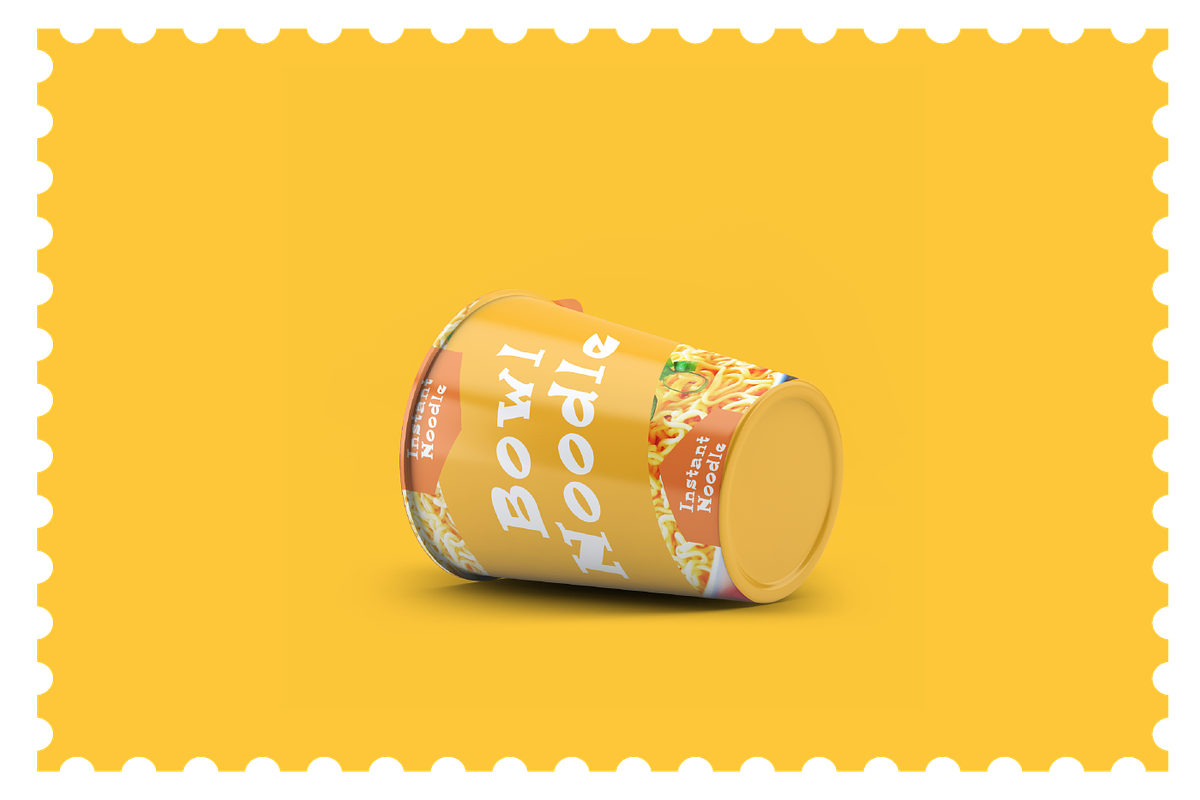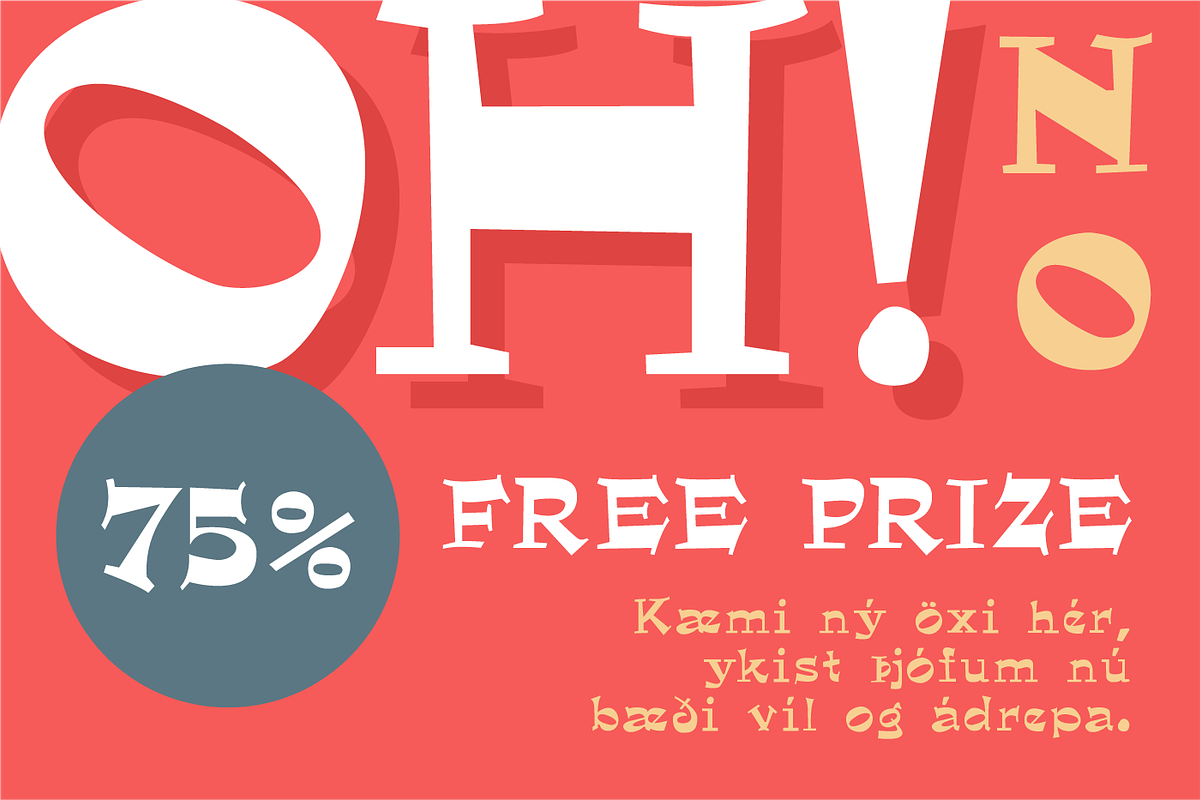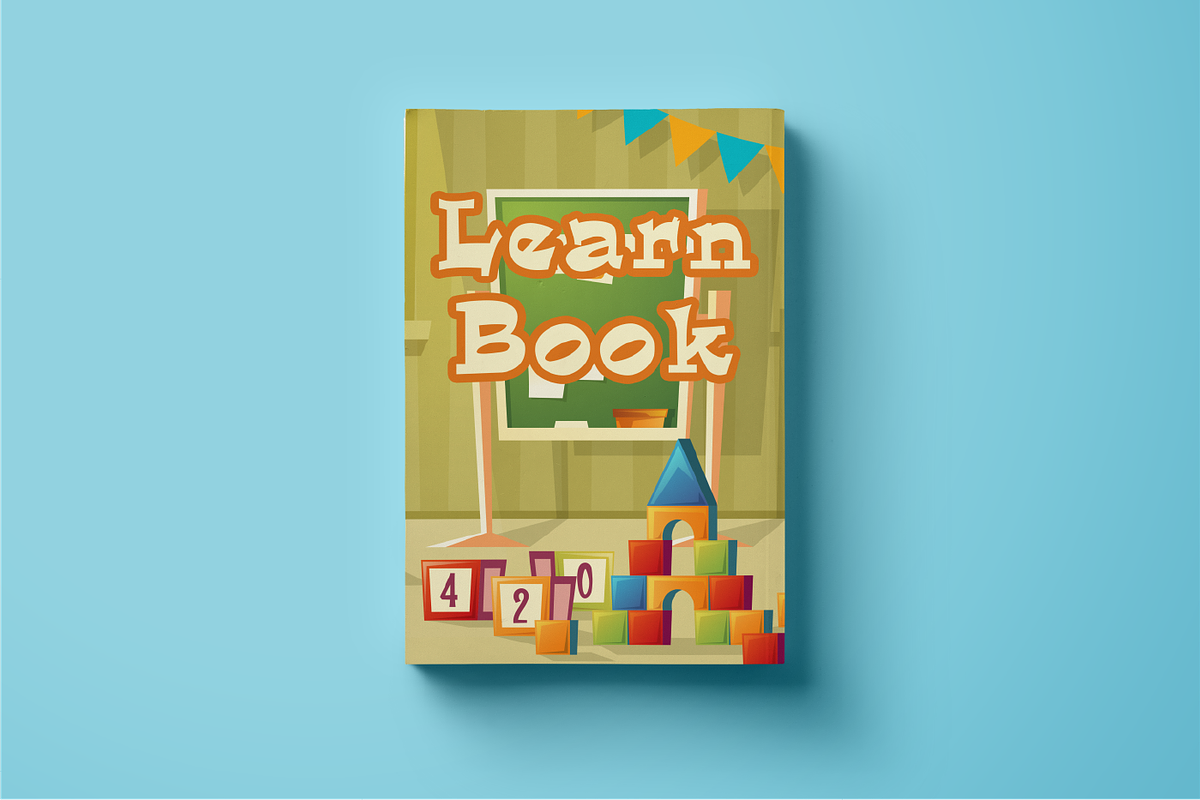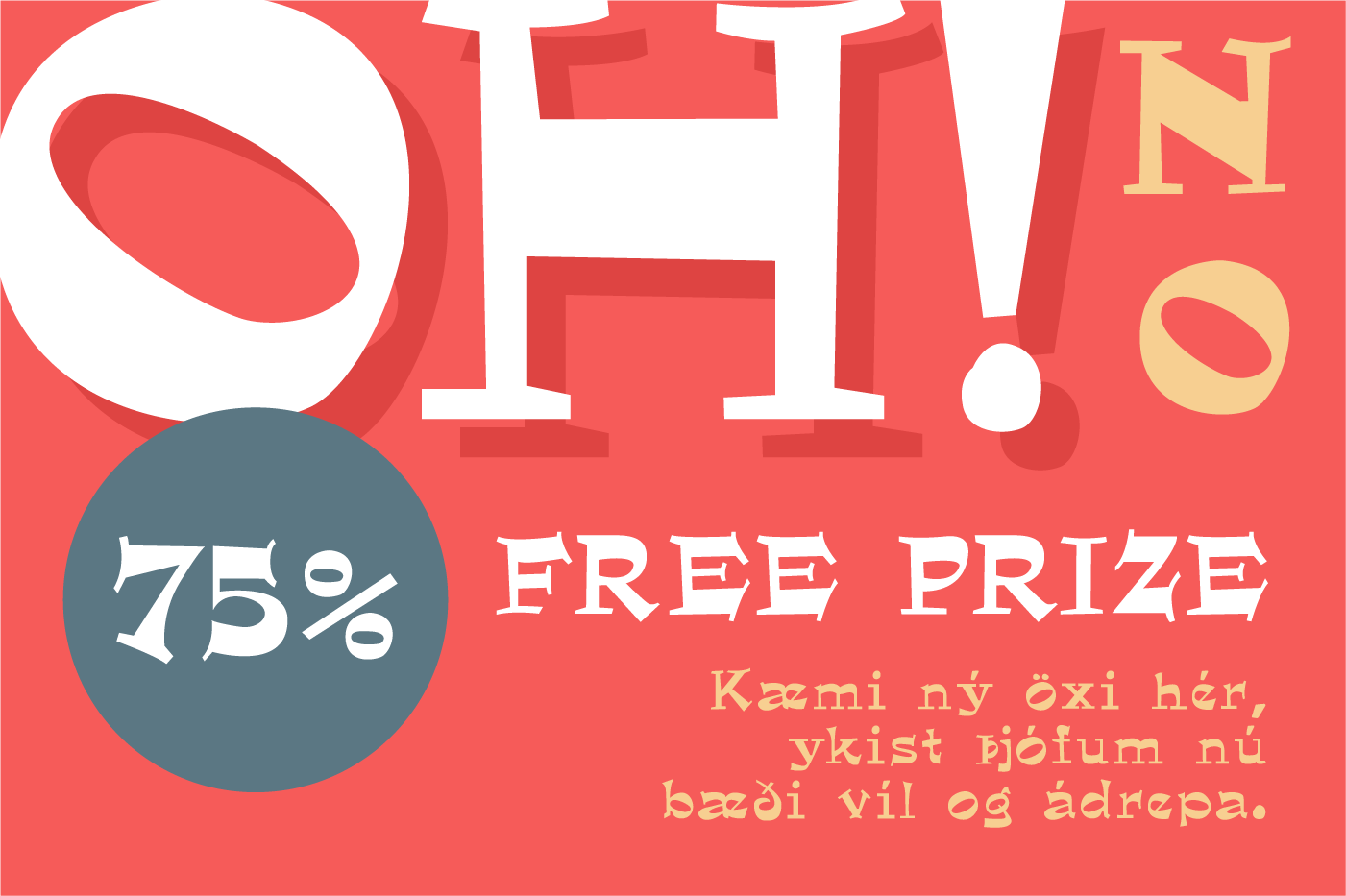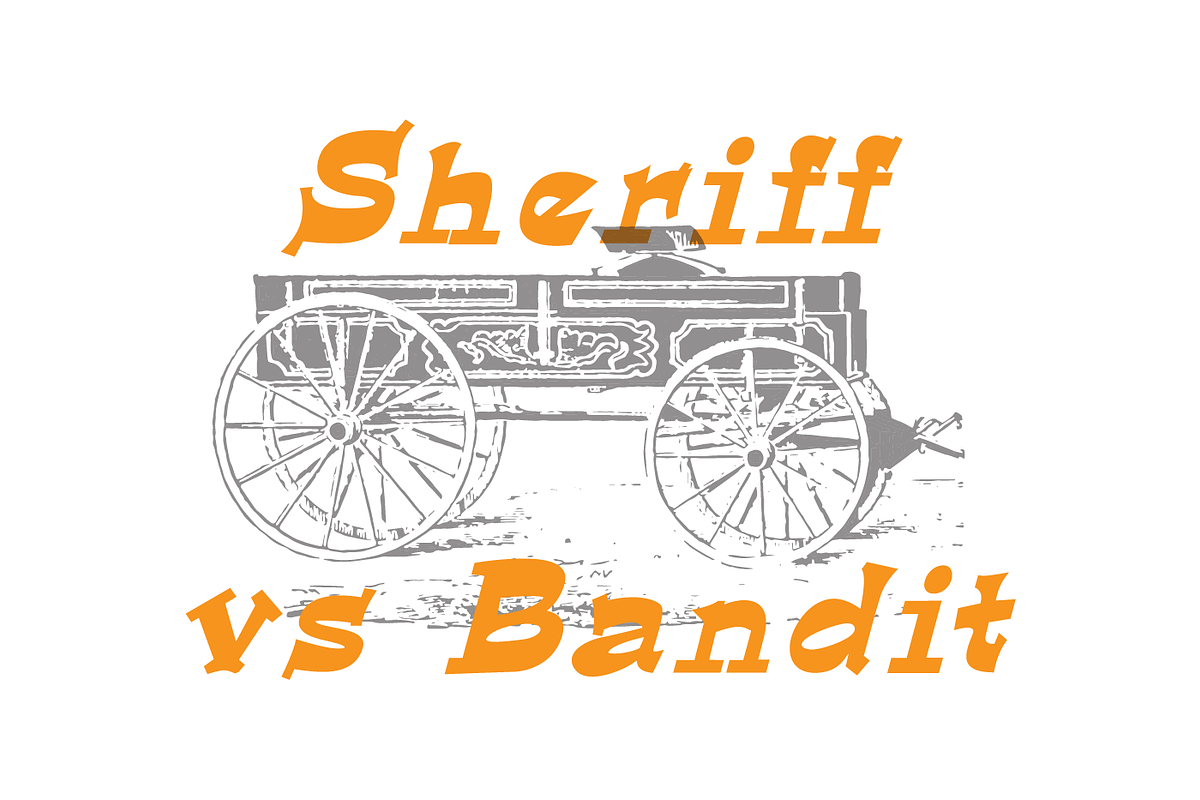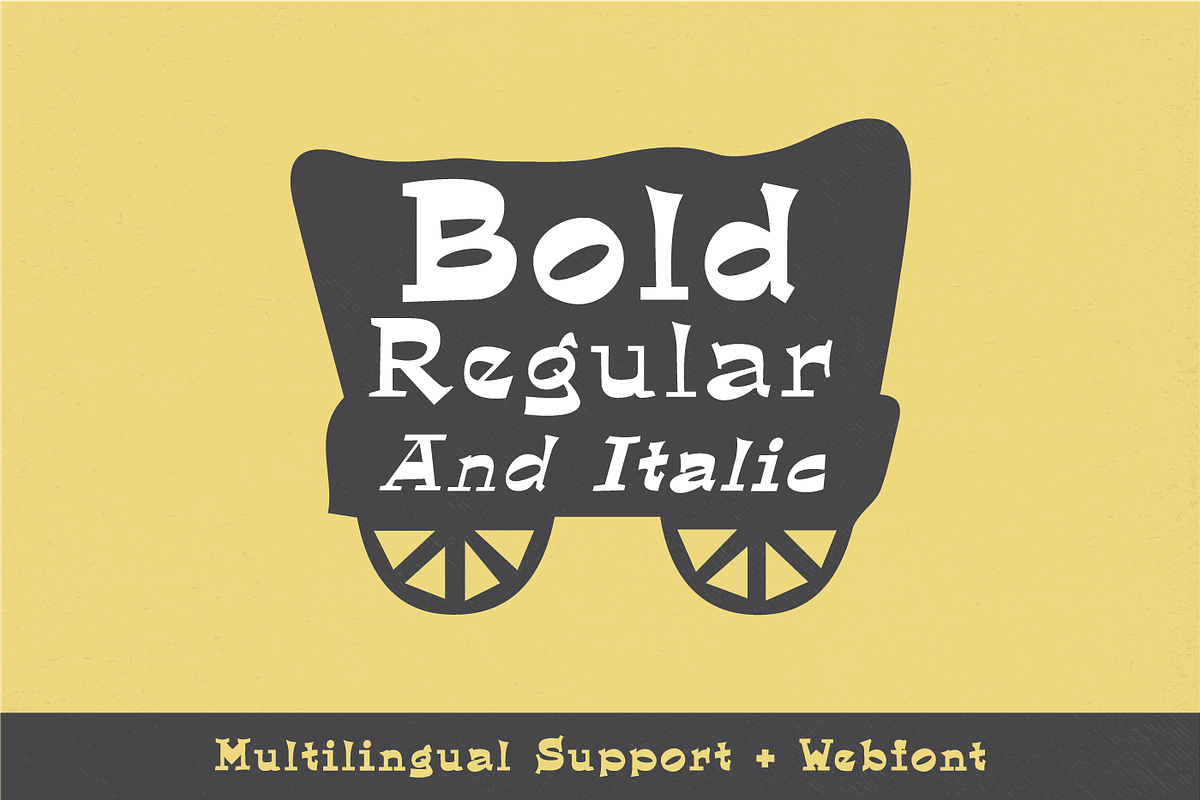
El Dorado - Retro Typeface
El Dorado is retro font inspired by wild west life and also can give your design a cheerful vibe with vintage touch.
Including 4 font style: Regular, Italic, Bold, and Bold Italic. Also included multilingual with eastern european, icelandic, and turkish with webfont file.